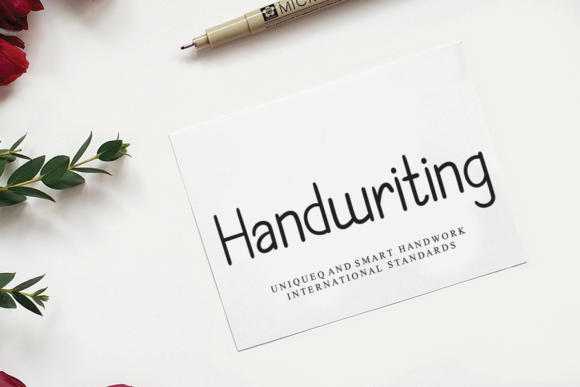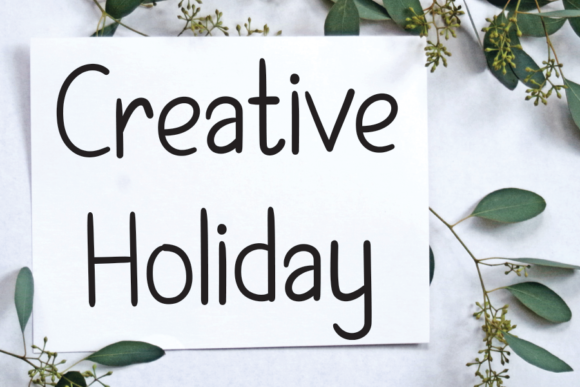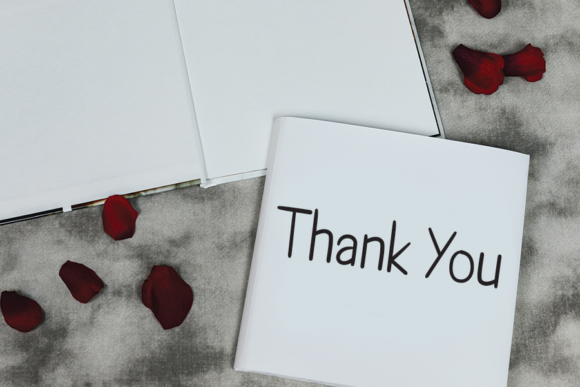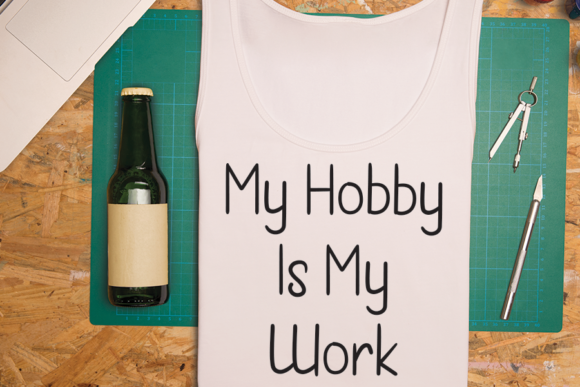
Magdeburg Font
About Magdeburg Font
Magdeburg is a modern handwritten font. This fantastic typeface is best suited for headlines of all sizes, as well as for blocks of text that have both maximum and minimum variations. Whether it’s for web, print, moving images or anything else – Magdeburg will look spectacular.